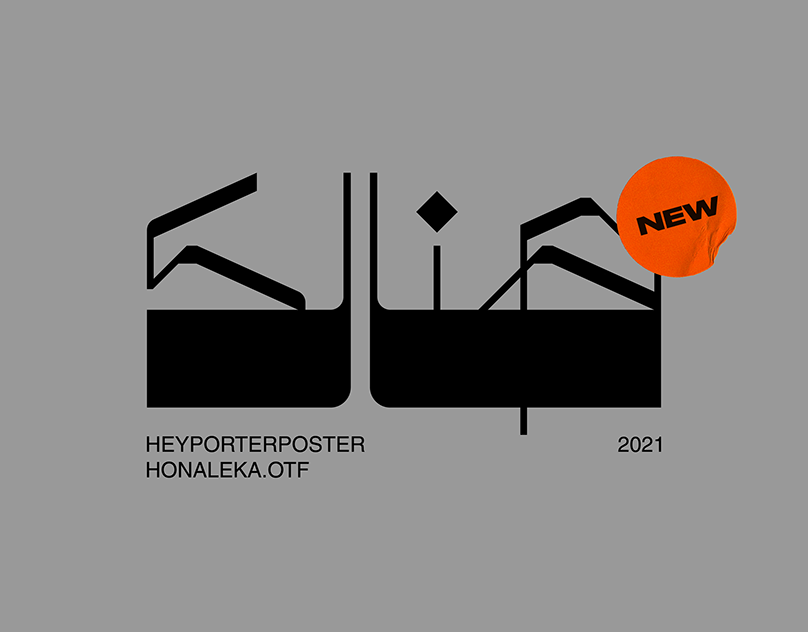
Honaleka Arabic Font
Download Henalk (Henalek), a sharply designed and stylish display Arabic font that masterfully combines traditional Naskh influences with high-contrast contemporary aesthetics for stunning visual impact (0.605 MB). OTF format with PNG and JPG previews.
Henalk is a unique and meticulously crafted typeface that bridges centuries of calligraphic tradition with cutting-edge contemporary design. By blending the elegant foundations of classical Naskh script with bold, high-contrast modern styling, this font creates a distinctive visual language that commands attention while honoring its cultural roots.
Design Characteristics:
- Sharp, precise design with exceptional detail
- High-contrast letterforms for dramatic impact
- Stylish, contemporary aesthetic with traditional soul
- Elegant slant that adds dynamic movement
- Powerful visual presence in any application
Naskh Foundation:
- Rooted in classical Naskh calligraphy traditions
- Elegant proportions inherited from centuries of refinement
- Authentic calligraphic structure beneath modern styling
- Cultural depth with contemporary expression
Arabic Script:
- Complete Arabic character set
- Full support for diacritics and marks
- Proper character connections and positioning
- Consistent high-contrast styling across all letters
- Optimized for display sizes and branding applications
- Logos: Create stunning, memorable brand identities
- Branding Projects: Cohesive identities with stylish impact
- Posters: Bold, eye-catching promotional materials
- Headlines: Dramatic display typography
- Packaging: Premium product presentation
- Editorial Design: Fashion and lifestyle publications
- Signage: High-impact displays
- Social Media: Visually powerful content
- Advertising: Campaigns that demand attention
- Stylish Design: Exceptional visual appeal with contemporary edge
- High Contrast: Dramatic impact in any application
- Cultural Depth: Traditional Naskh foundations
- Professional Quality: High-caliber font for serious brands
- Visual Power: Commands attention and conveys sophistication
Key Features of Henalk Font:
- Sharp, high-contrast Arabic display design
- Traditional Naskh influences with contemporary styling
- Elegant slant for dynamic visual movement
- Complete Arabic character set
- Perfect for logos, branding, and posters
- Logo and brand identity designers
- Fashion and lifestyle brands
- Advertising and marketing professionals
- Poster and editorial designers
- Anyone seeking the most stylish Arabic typography